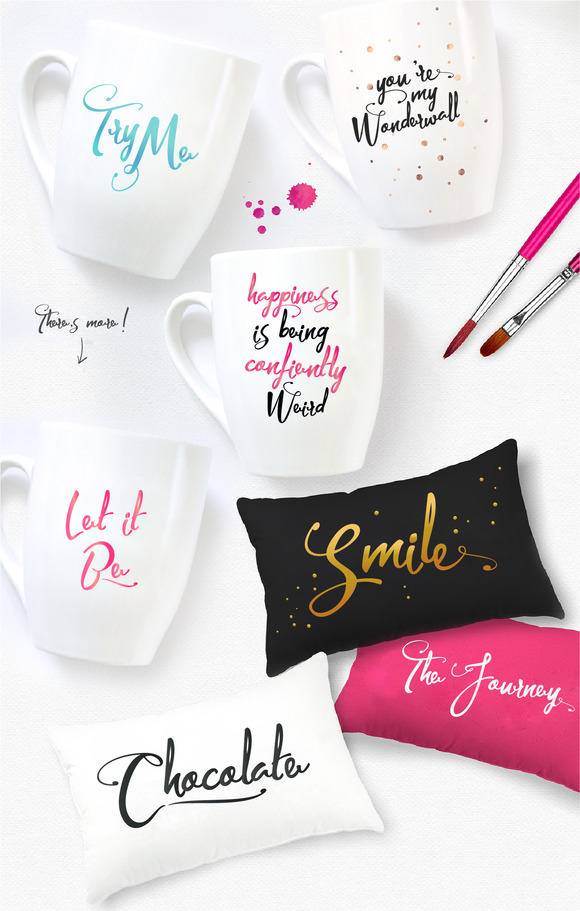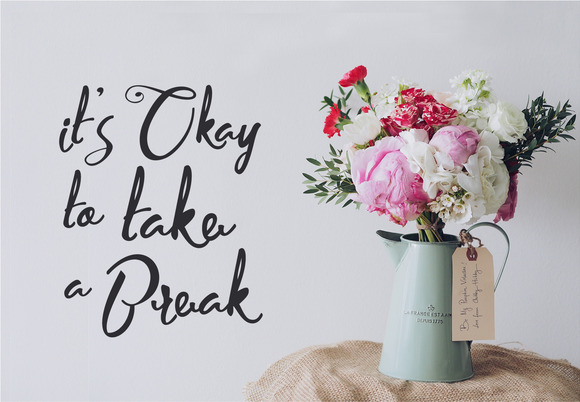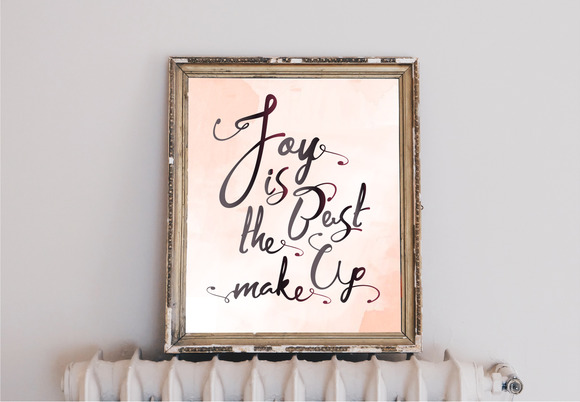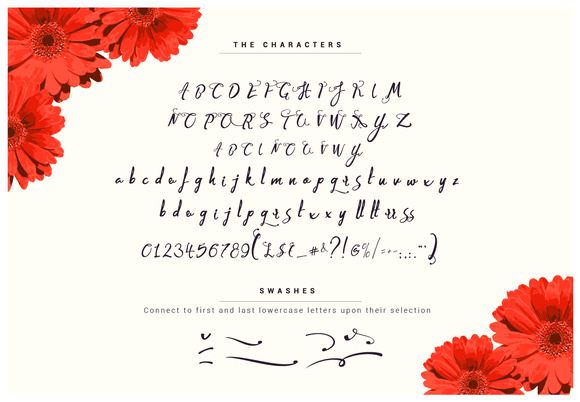
Unleash Your Creativity with the Awesawez Font
Have you ever sat at your desk, staring at a blank sheet of paper, waiting for inspiration to strike? The blank page can be daunting, but it’s also a canvas waiting to be filled with creativity. For designers, finding the perfect font can be the spark that sets the entire project ablaze. And that’s exactly where the Awesawez Font comes in.
This beautiful modern calligraphy style font is more than just a pretty face – it’s a powerful tool that allows you to create stunning personalized items that reflect your unique style. With its hand-crafted design and bouncy characters, the Awesawez Font is the perfect addition to any designer’s toolkit. Whether you’re working on a wedding invitation or a birthday card, the Awesawez Font is sure to add a touch of elegance and sophistication.
Awesawez Font Key Features
- Font Family: Awesawez Font is a unique, hand-drawn font family that offers a wide range of styles and weights.
- Size: The font family includes a range of sizes, from 8-point to 72-point, allowing for flexibility in design and layout.
- Resolution: Designed for high-resolution displays, the font looks crisp and clear at resolutions up to 300 DPI.
- Unique Characteristics: Awesawez Font features a playful, handwritten feel with intricate details and flourishes, making it perfect for creative and artistic projects.
Designer Review: Awesawez Font
I recently had the chance to work with the Awesawez font, and I must say it’s been an interesting experience. ✨ The font’s unique, playful design is perfect for projects that require a fun, whimsical touch. I especially love the way it handles headings and titles, adding a touch of personality to any layout.
However, I do have some reservations about using the Awesawez font in certain contexts. ⚠️ One major limitation is its limited legibility at smaller font sizes. When used in body text, the font can become difficult to read, especially for users with visual impairments.
- It’s best suited for display text, such as headings, titles, and short blocks of text.
- Use it sparingly in body text, and make sure to adjust font sizes accordingly.
- Consider pairing it with a more legible font for body text to ensure readability.
Overall, the Awesawez font is a great addition to any designer’s toolkit, but it’s essential to use it thoughtfully and consider the needs of your users.
Getting the Most Out of Awesawez Font
For the best results, use the Awesawez font in bold or italic styles to add emphasis to your text.
Combine it with bold or italic images to create a visually appealing design.
Experiment with different font sizes and colors to find the perfect balance.
The Awesawez font is ideal for:
– Creating eye-catching headlines and titles.
– Designing social media graphics and posters.
– Adding a touch of personality to your business cards and brochures.
– Creating unique and memorable presentations.
Alternatives to Awesawez Font for Designers
Great Vibes Font is a modern, elegant script font perfect for adding a touch of sophistication to your designs. It’s ideal for use in branding, logos, and headings. When to use: When you want to convey a sense of luxury and elegance.
Comparison: Great Vibes Font has a more refined and polished look compared to Awesawez Font, making it suitable for high-end designs. However, it lacks the quirky, playful feel of Awesawez Font.
Pacifico Font is a beautiful, elegant script font with a relaxed, beachy vibe. It’s perfect for use in branding, packaging, and advertising. When to use: When you want to convey a sense of relaxation and calmness.
Can I use the Awesawez Font for print materials?
Yes, the Awesawez Font is suitable for print materials, including business cards, brochures, and posters. However, please note that the font’s quality and legibility may vary depending on the printing process and paper quality. It’s recommended to test the font in various print scenarios to ensure optimal results.